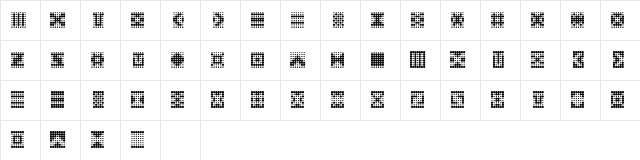
Peppered BTN Ornaments Regular Font Preview
Peppered BTN Ornaments Regular
Design Context for Peppered BTN Ornaments Typeface
Peppered BTN Ornaments brings ornamental detail and strong personality to headlines and identities, where visual impact matters more than quiet functionality.